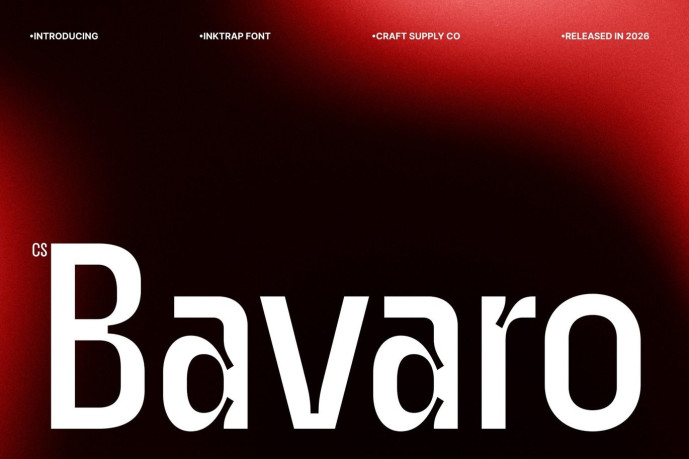
Bavaro – Inktrap Font
Designer: Craft Supply Co.
CS Bavaro – Modern Display Sans Serif Font: Where Geometric Precision Meets Inktrap Innovation Bold Geometric Letterforms with Contemporary Character This is a modern display sans serif font featuring distinctive inktrap details that bring a bold and contemporary personality. Its clean geometric construction, balanced proportions, and confident structure create typography that feels modern, professional, and highly impactful, making it ideal for standout display applications.
Refined Inktrap Details with Unique Visual Identity This font introduces subtle yet distinctive notches that enhance both aesthetics and optical clarity. These unique cut-in terminals add depth and technical sophistication to every letterform, creating a striking balance between functional readability and expressive visual character. Modern Simplicity with Strong Design Presence This font delivers a refined contemporary style that is both versatile and memorable. Its structured forms communicate precision and confidence, while the inktrap features introduce personality that elevates branding and display typography with a fresh, distinctive look.
Perfect for Branding, Technology, and Creative Display Projects Perfect for branding, posters, packaging, technology projects, creative identities, editorial headlines, logos, advertising campaigns, digital products, startup branding, signage, and modern visual communications. Its fusion of geometric sans serif construction, distinctive inktrap details, and contemporary aesthetics makes it ideal for projects that communicate innovation, professionalism, and bold creative expression.